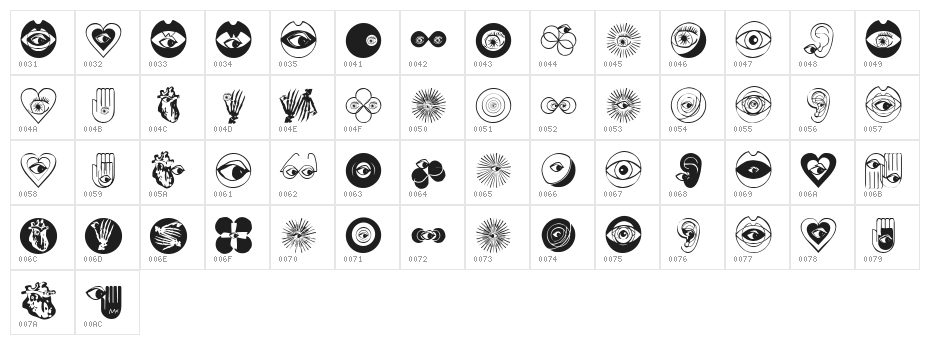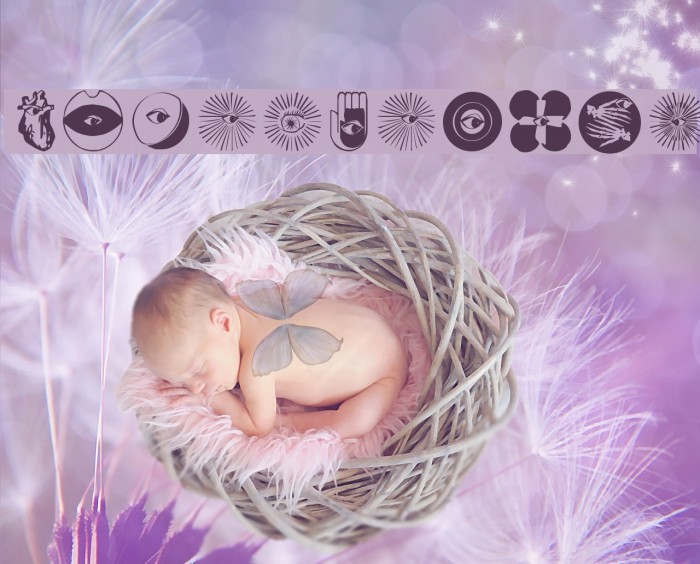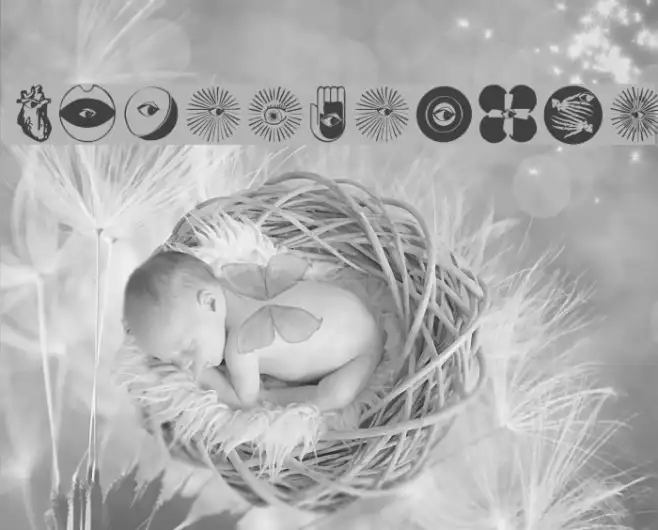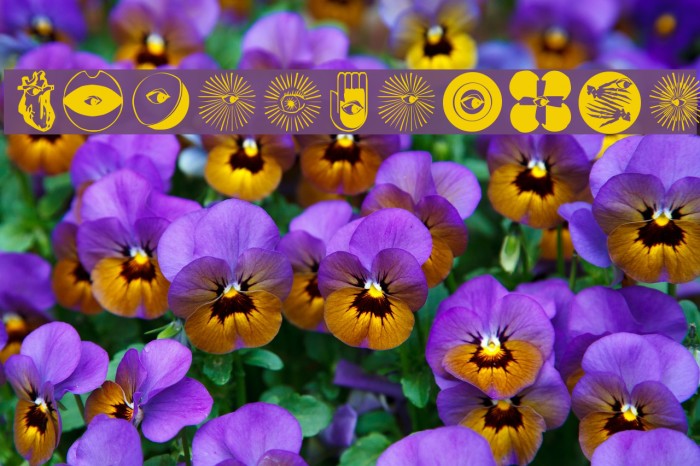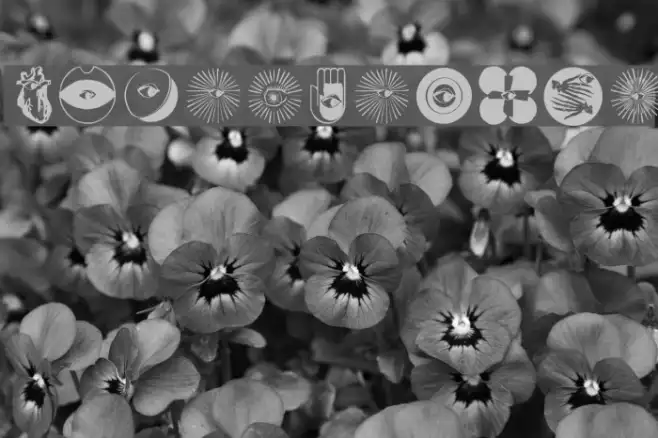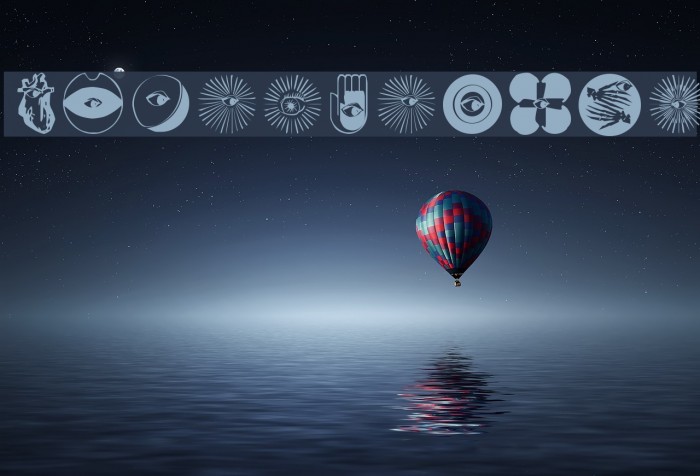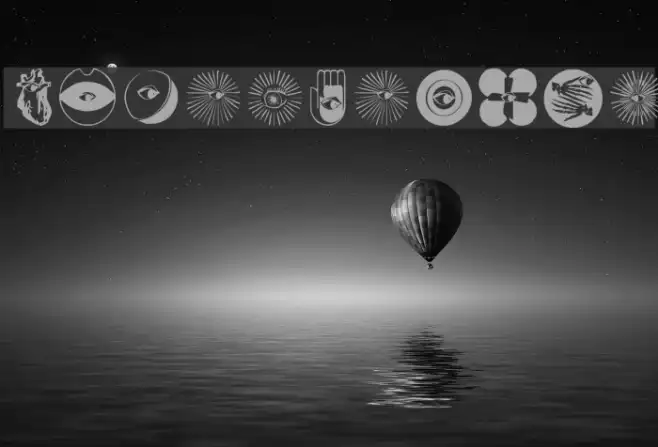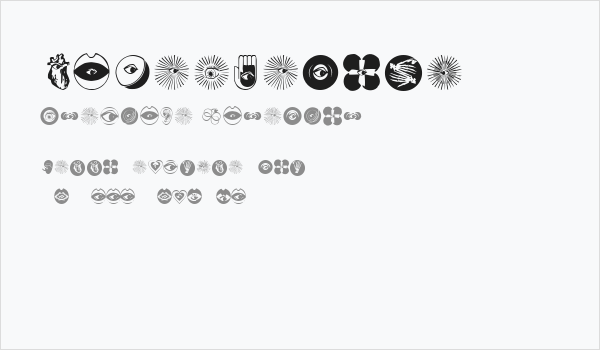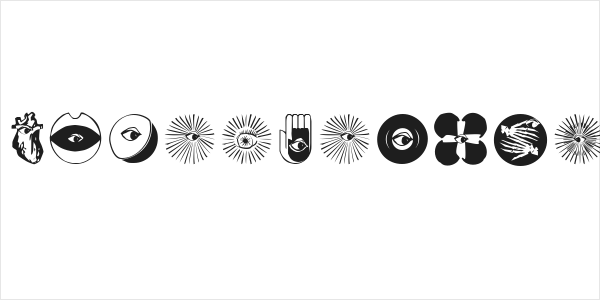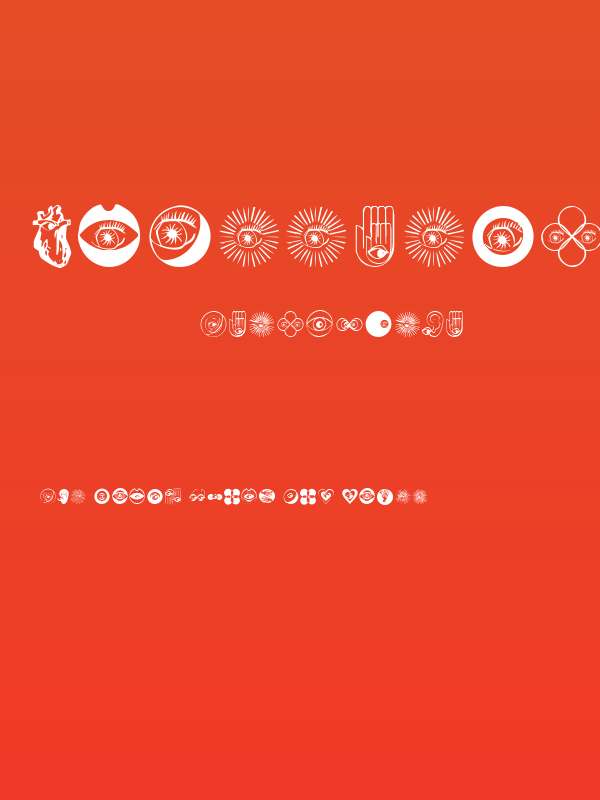
LifeEyecons Font
LifeEyecons Description
A decorative display font composed of unique, surreal icons combining eyes, hands, hearts, ears, and abstract shapes, rendered in bold black and white with high contrast and playful, symbolic forms.
| Overall Style | Surreal, Decorative, Modern |
| Use Case | Logos, Headlines, Posters, Branding, Artistic projects |
| Proposed Projects | Branding for creative industries, album covers, poster art, editorial illustrations, tarot or mystic-themed projects, and unique logo design. |